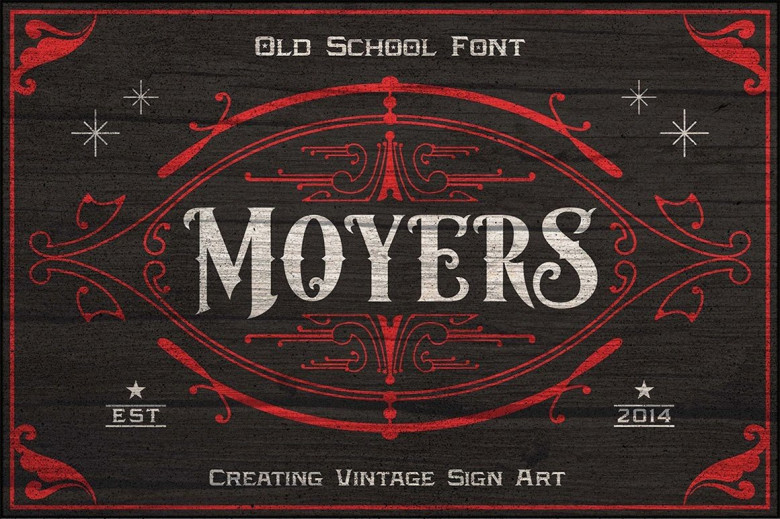
Moyers Font
Moyers is an elegant vintage-style blackletter font. Perfect for display purposes or logo designs that require vintage aesthetics such as T-shirt, posters and labels, features include uppercase, lowercase, numerals basic punctuation available both as OTF/TTF formats.
Moyers Blackletter Font